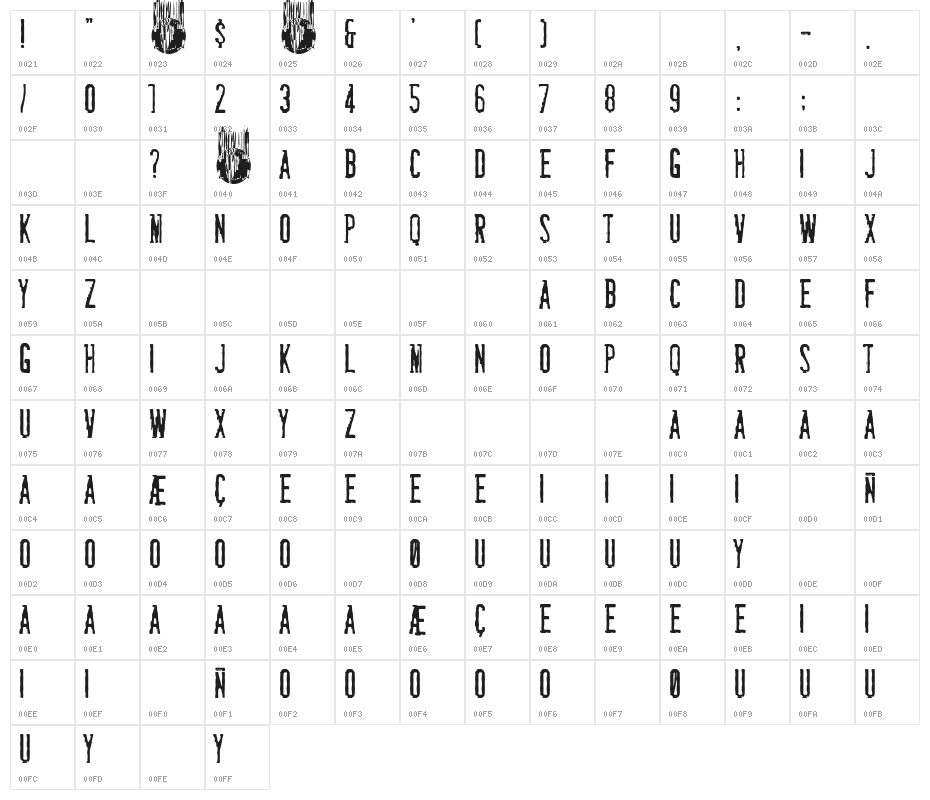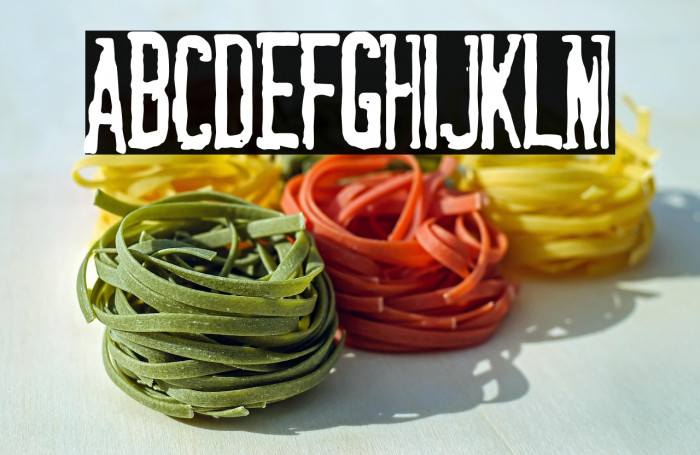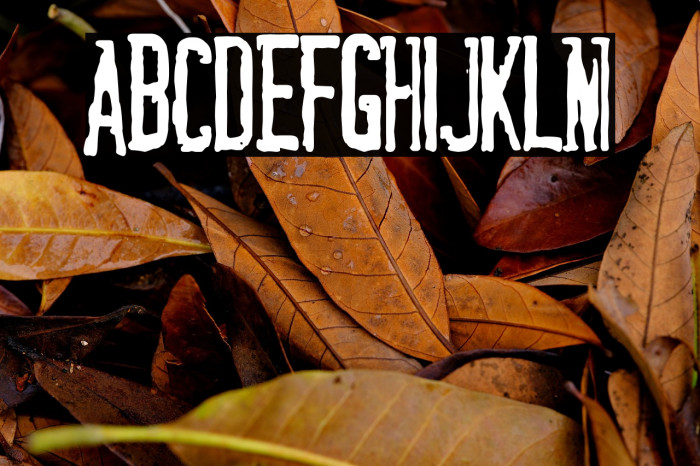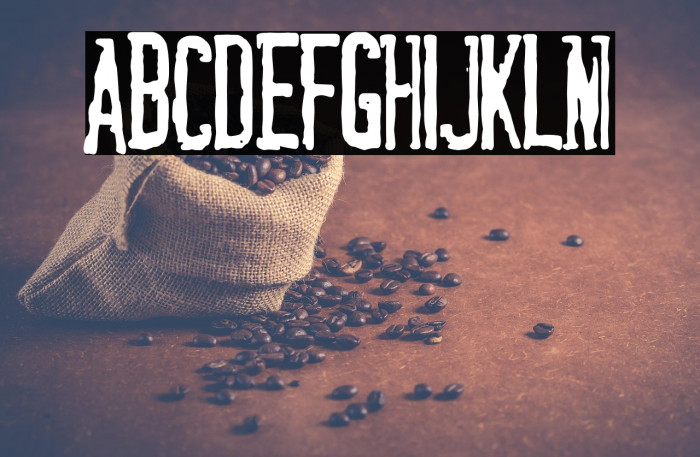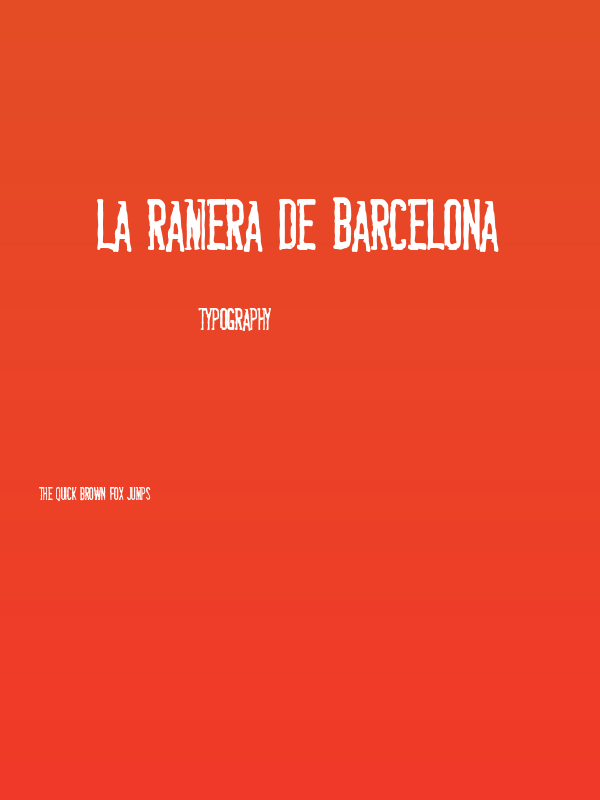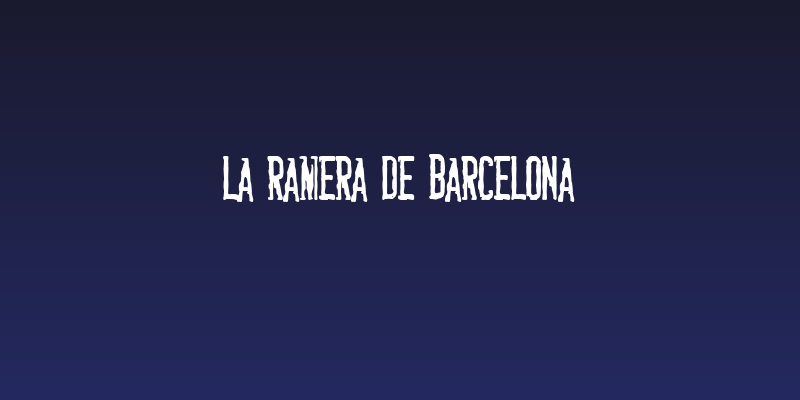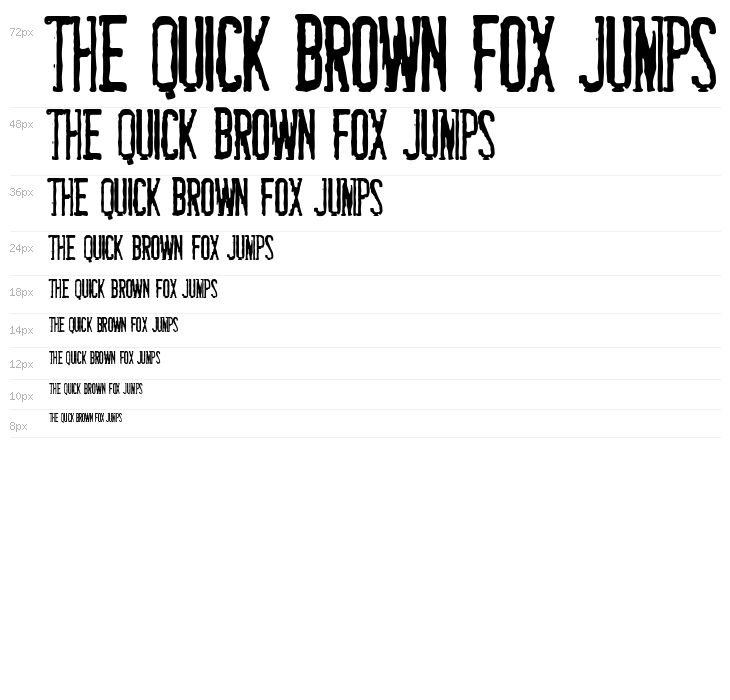
La Ramera de Barcelona Font
La Ramera de Barcelona Description
This font features a rugged, distressed style with uneven edges and a hand-crafted appearance. The uppercase and lowercase letters exhibit a bold, impactful presence, making it suitable for attention-grabbing designs. The numerals and special characters maintain the same distressed aesthetic, ensuring consistency across all text elements. The font's unique style evokes a sense of vintage charm and rebellious spirit, perfect for projects that require a bold statement.
| Overall Style | Vintage, Decorative |
| Proposed Projects | Ideal for posters, album covers, branding for edgy or alternative products, and any design needing a bold, vintage touch. |